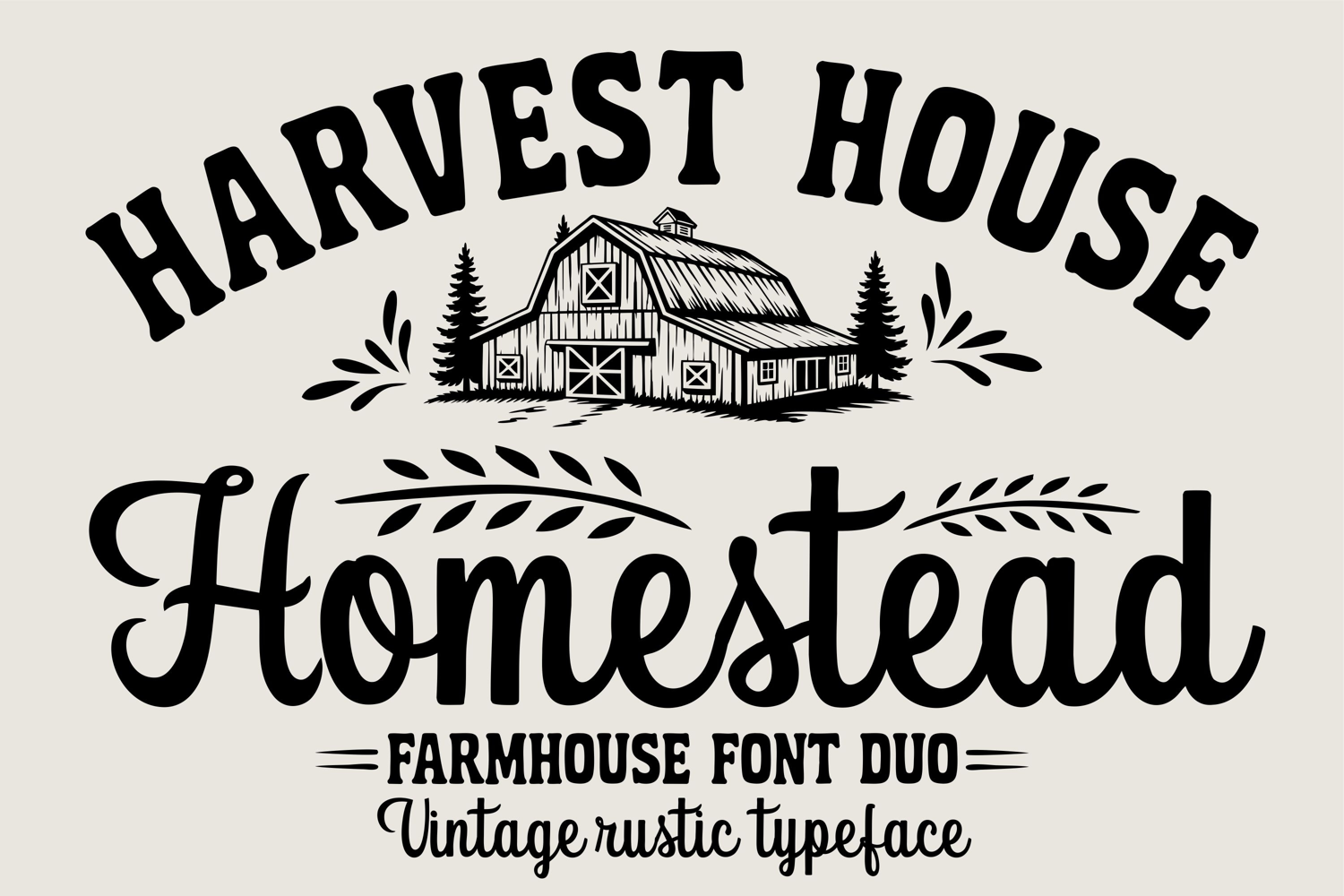
Farmhouse Font Duo, A Script & Rustic Serif Font
Discover the timeless charm of rustic typography with the Harvest House & Homestead Font Duo — a perfect blend of bold farmhouse serif style and warm handcrafted script.
This duo features two beautifully complementary fonts that bring vintage character, cozy charm, and handcrafted authenticity to your creative projects.
1. Harvest House:
A classic, bold farmhouse serif font inspired by traditional barn lettering and rustic signage. Its sturdy lines and vintage curves create strong, eye-catching titles perfect for logos, packaging, farmhouse crafts, and decorative prints.
2. Homestead Script:
A smooth, flowing handwritten script font designed to pair effortlessly with Harvest House. Its natural strokes, elegant curves, and subtle rustic flair add warmth and personality to any design.
Ideal for farmhouse signs, home décor, wedding invitations, branding, seasonal projects, t-shirts, labels, or digital graphics — this duo brings handcrafted charm to every layout. Whether you’re designing for print or digital platforms, these fonts add a timeless, country-style aesthetic to your work.
Bring your country-inspired ideas to life with this duo crafted to deliver vintage warmth and authentic farmhouse style.